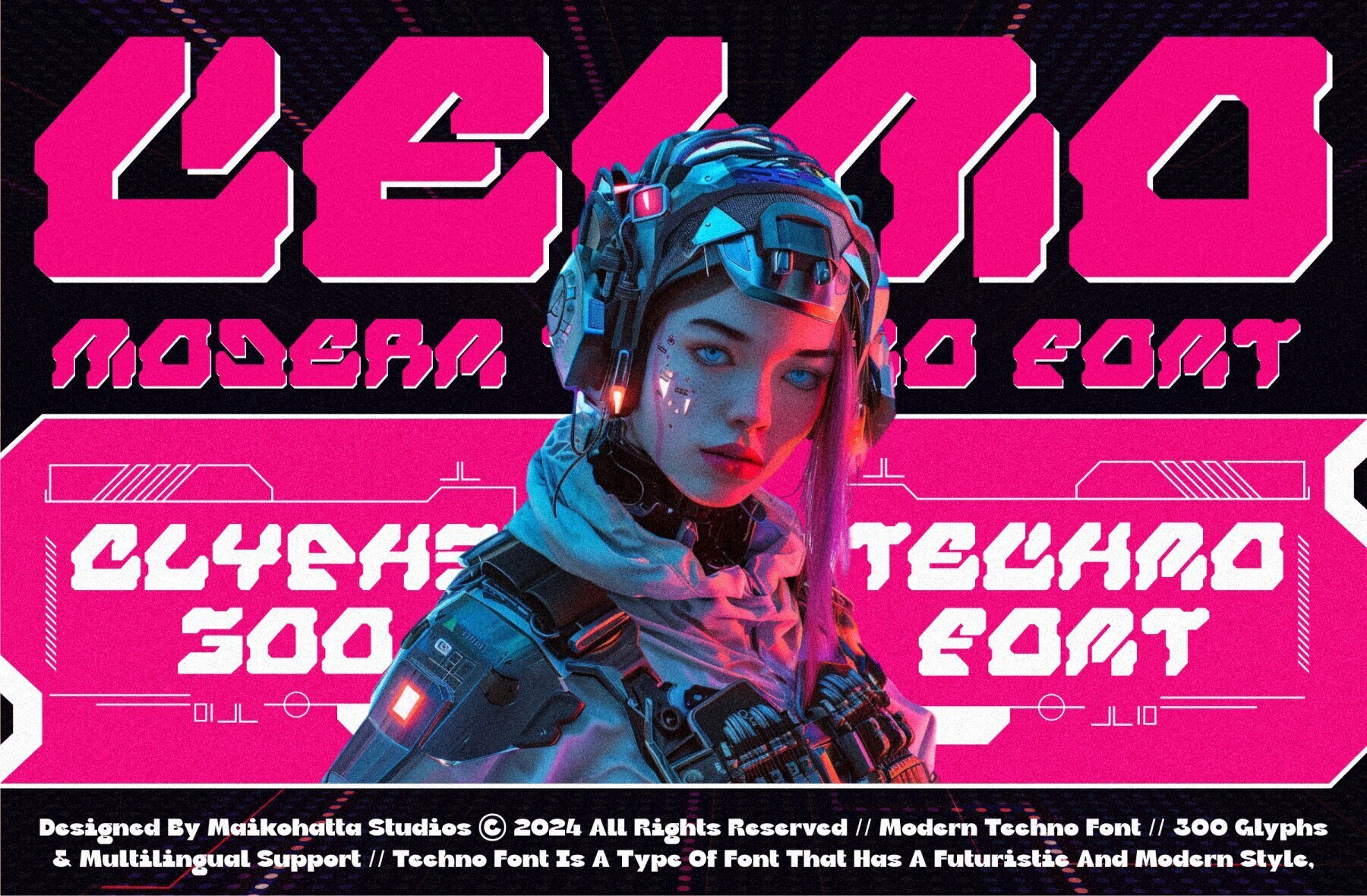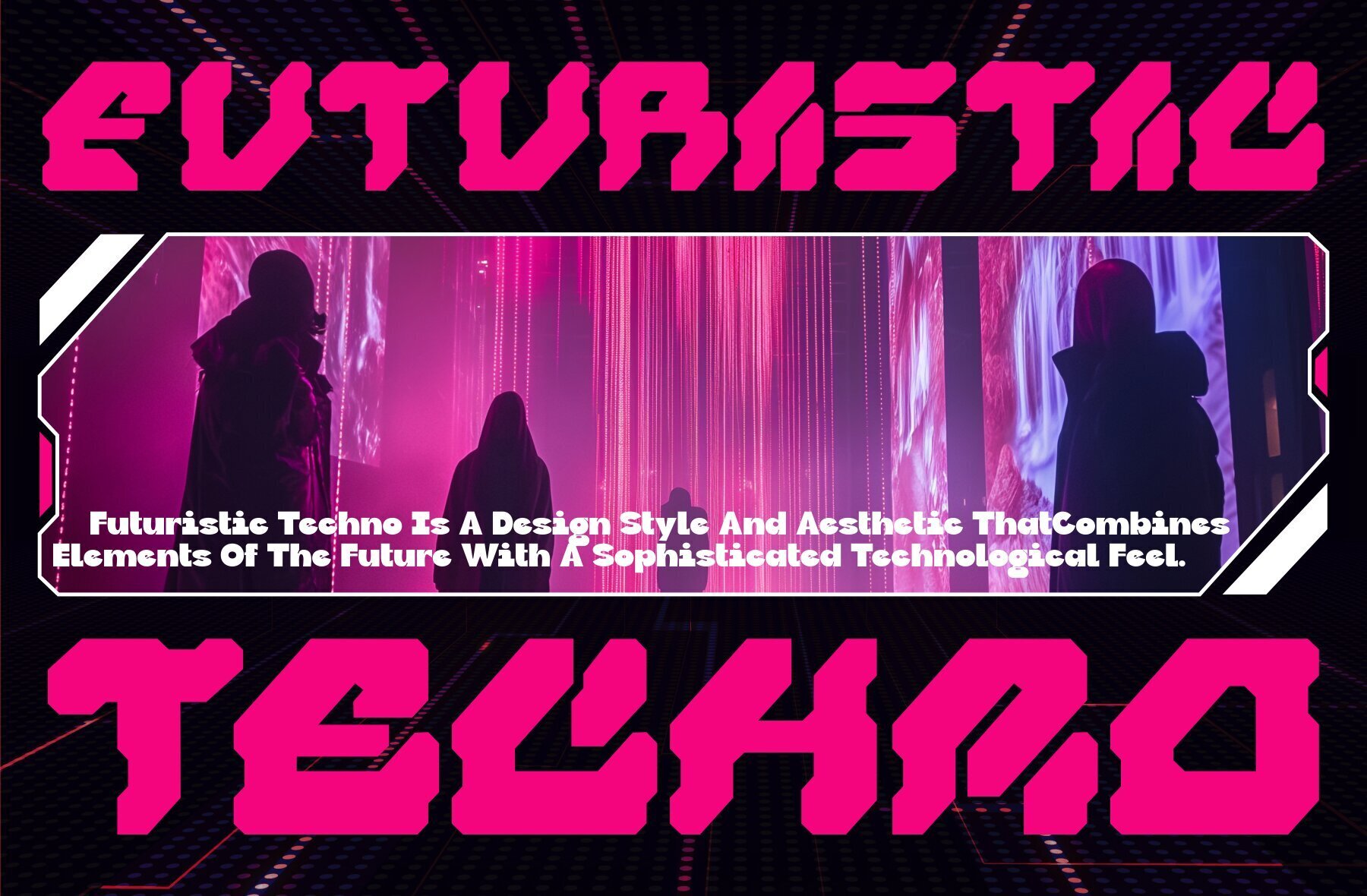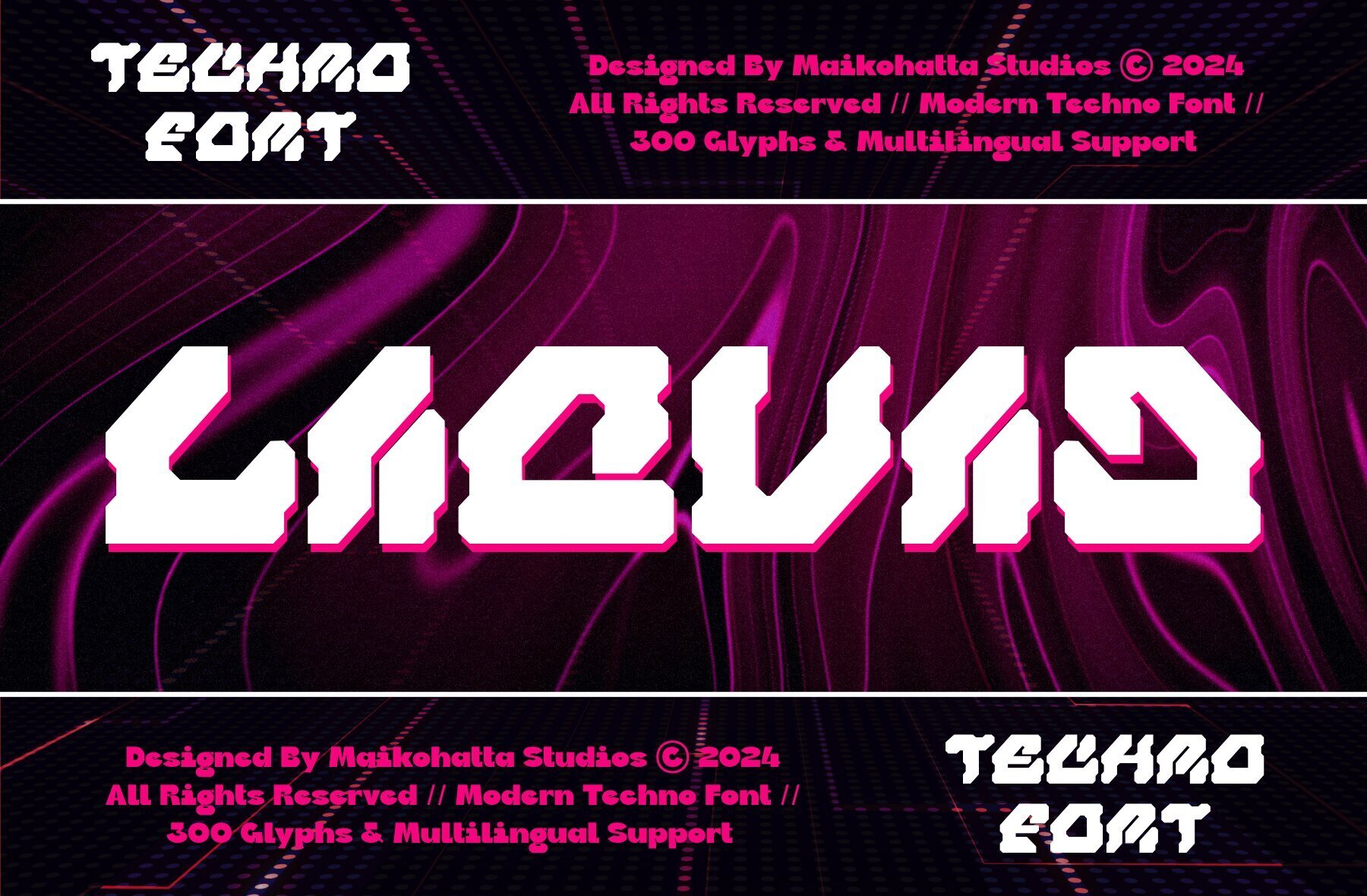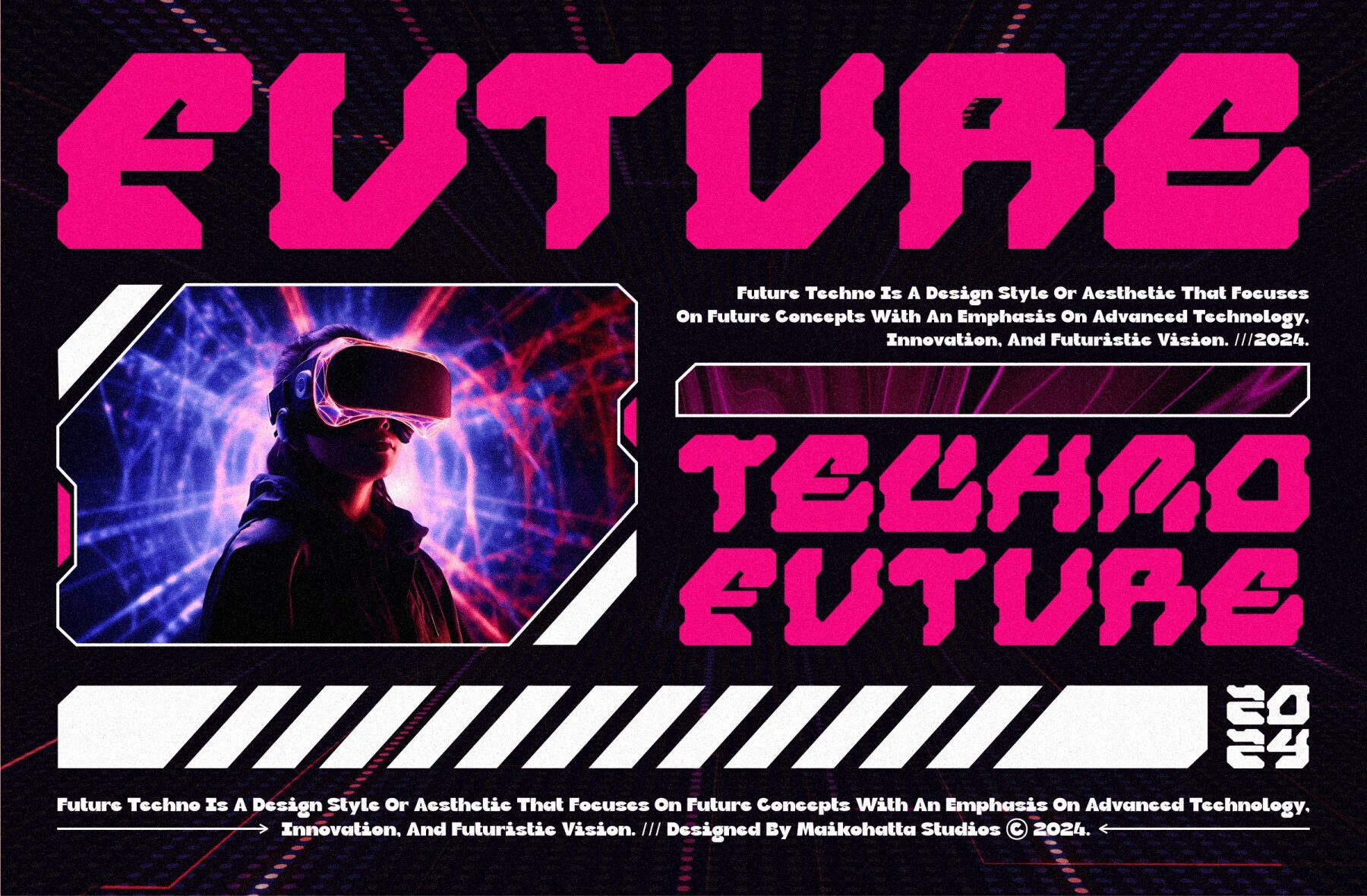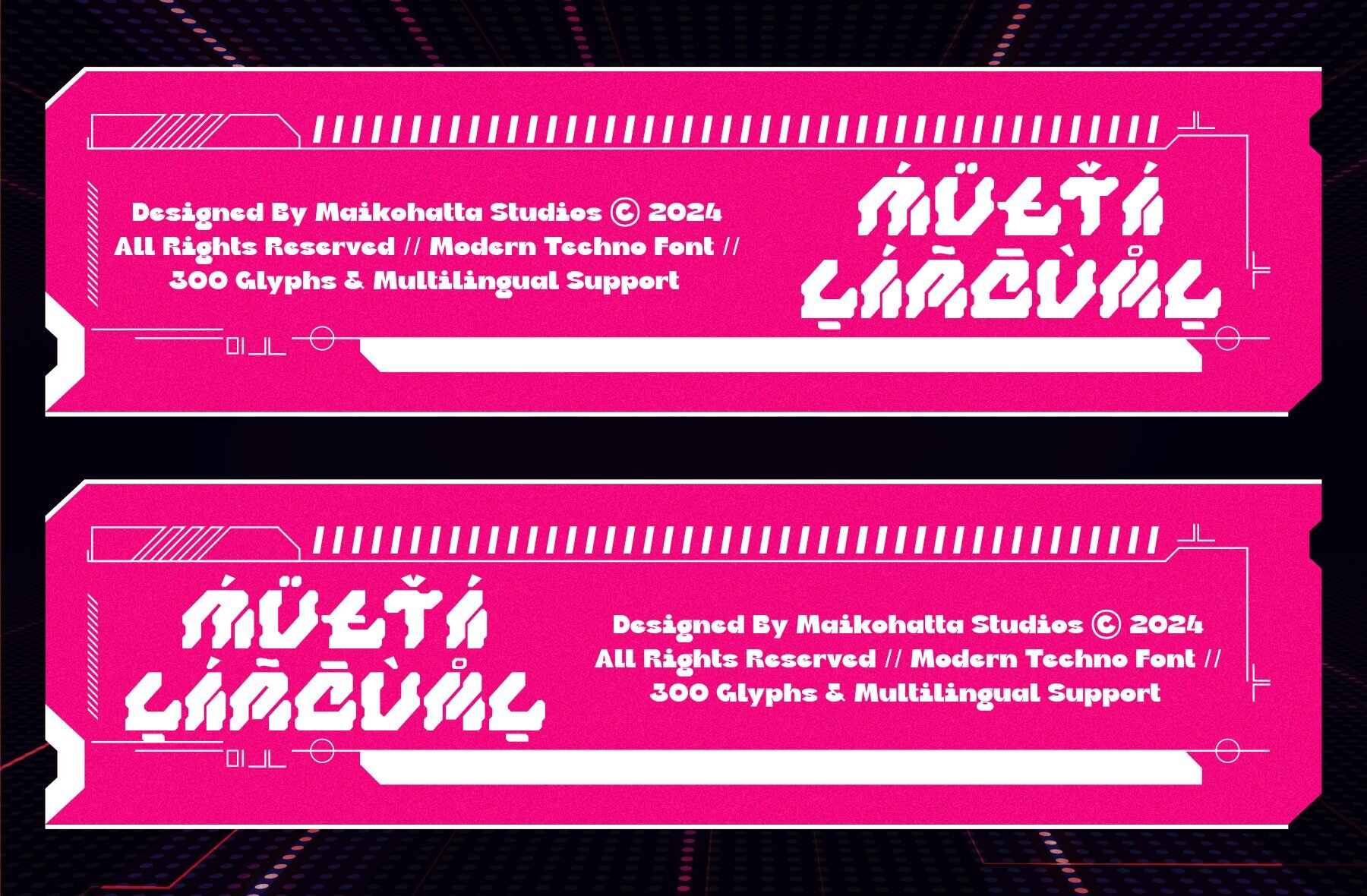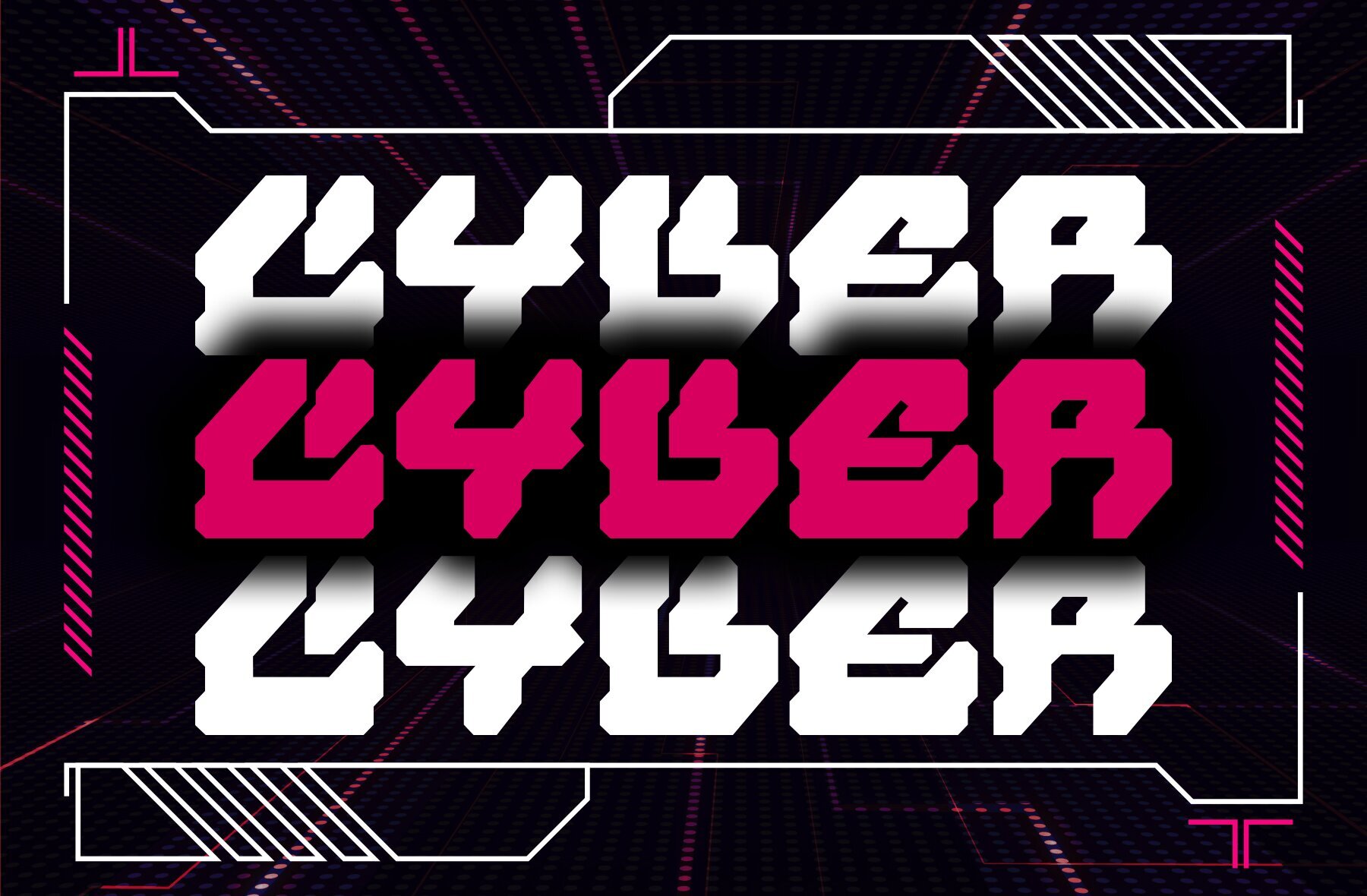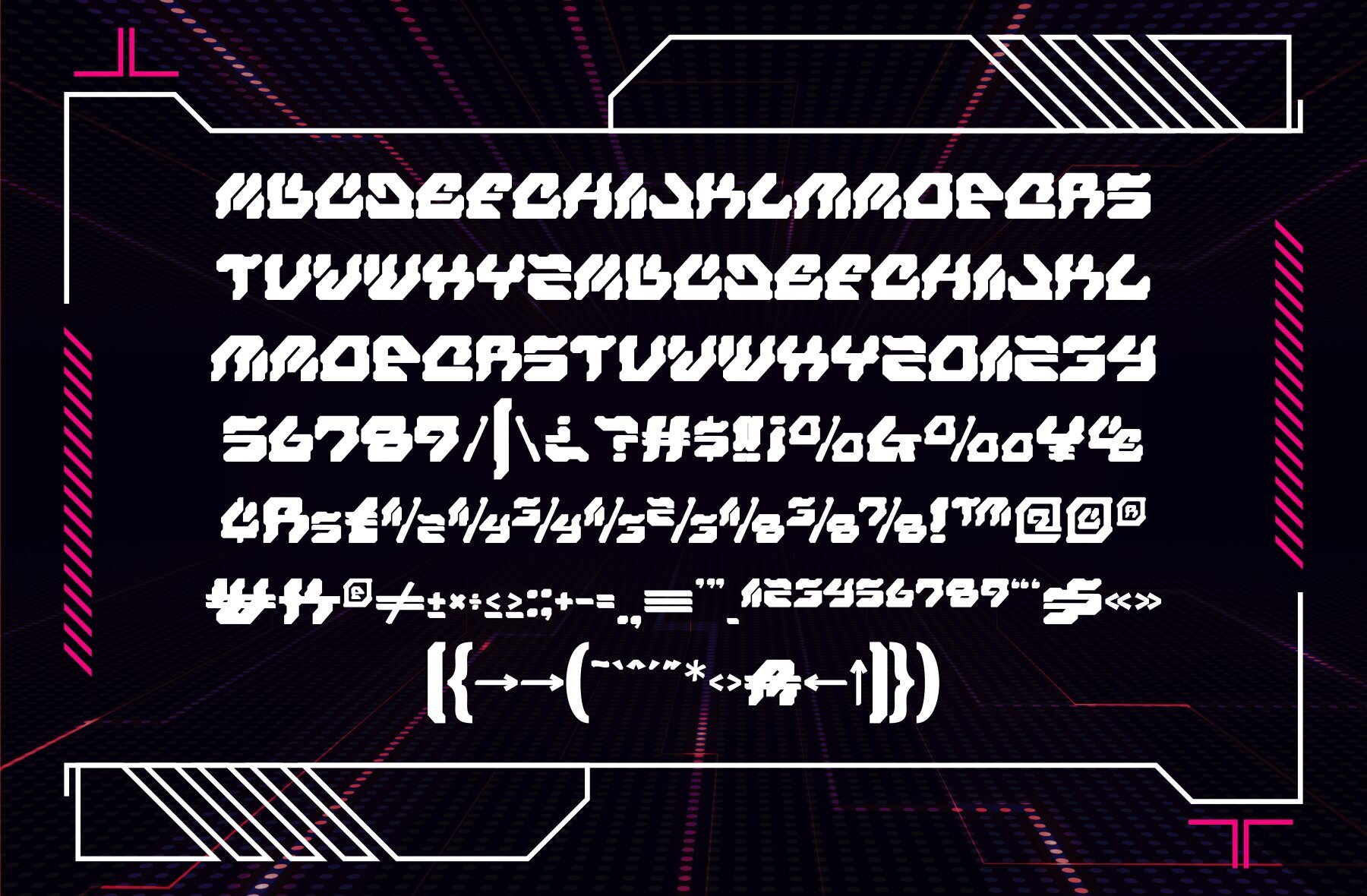
Ceimo Font
Ceimo Regular
Ceimo is a modern techno font that exudes a futuristic design inspired by advanced technology. With its sharp lines, geometric shapes, and innovative elements, it's perfect for creating a sense of modernity and energy in your projects. Whether you're working on technology-themed designs, robotics, or science-related visuals, Ceimo adds a distinctive and cutting-edge look.
This versatile font is well-suited for logos, website designs, posters, and other creative projects that require a contemporary, sleek touch. Its futuristic aesthetics make it an excellent choice for those aiming to reflect the digital era and technological advancements in their work.